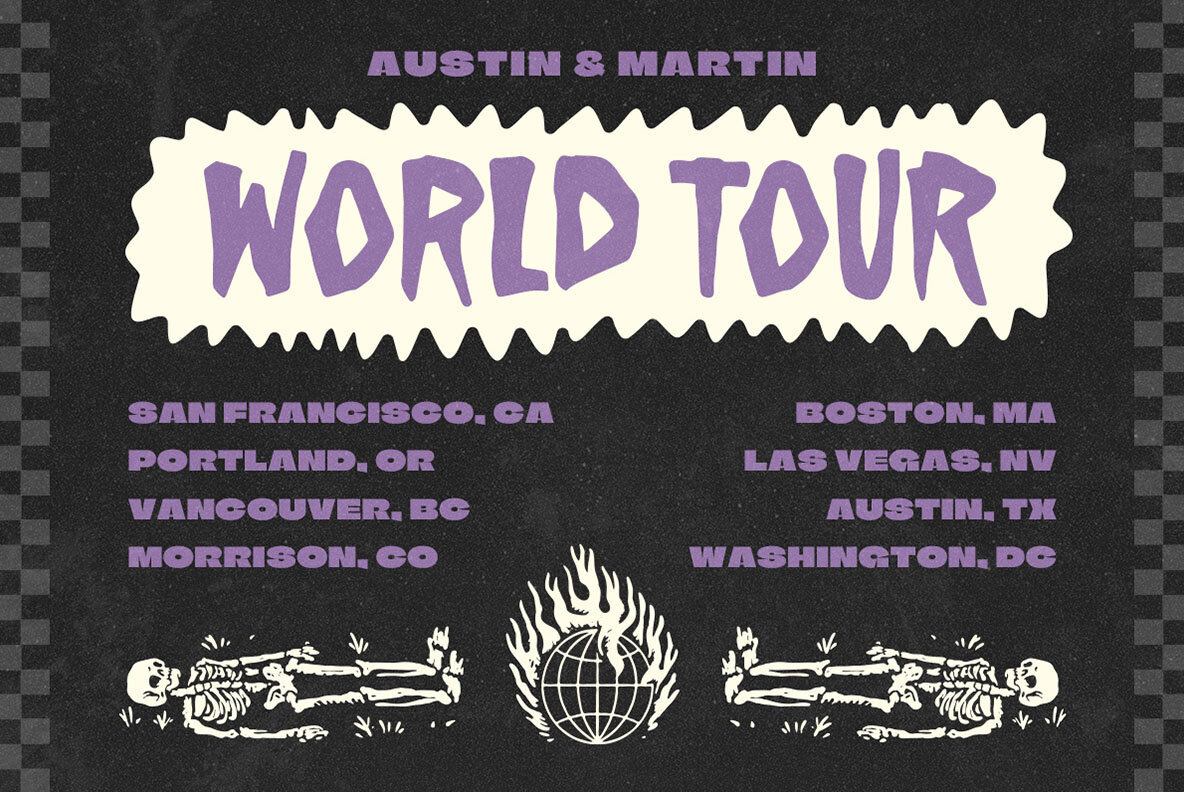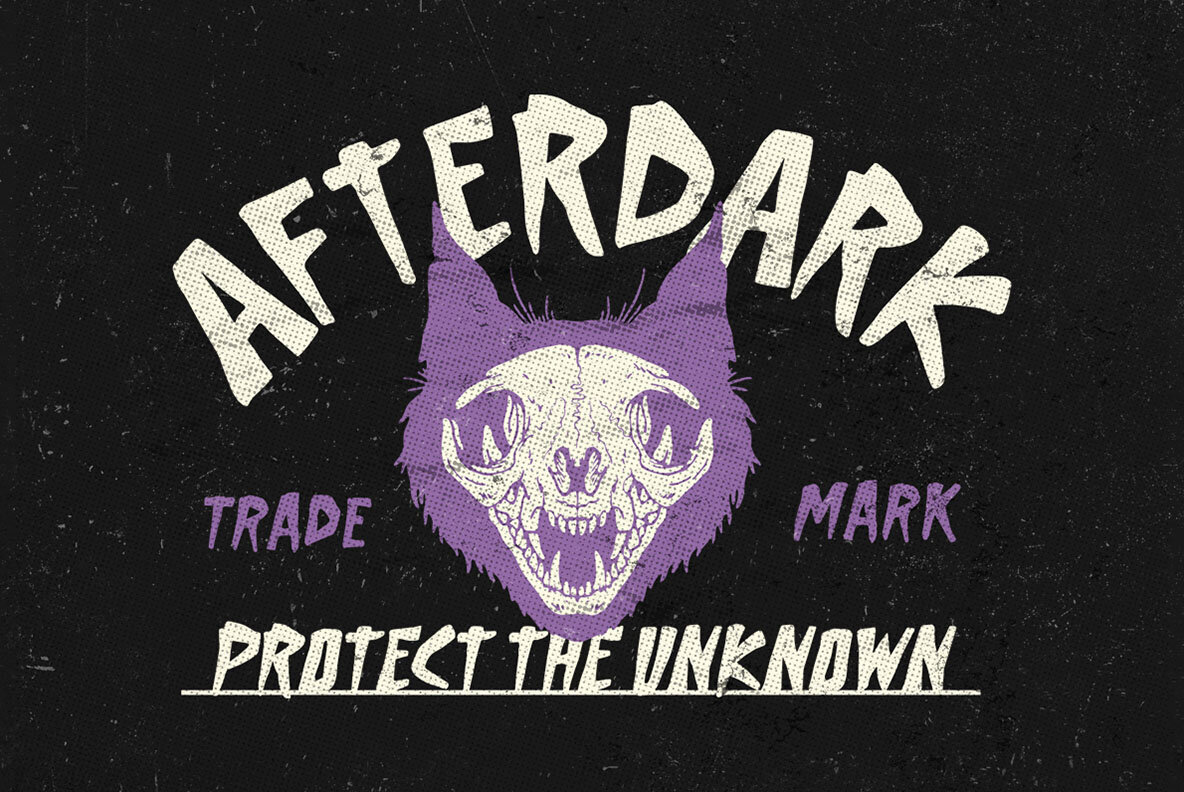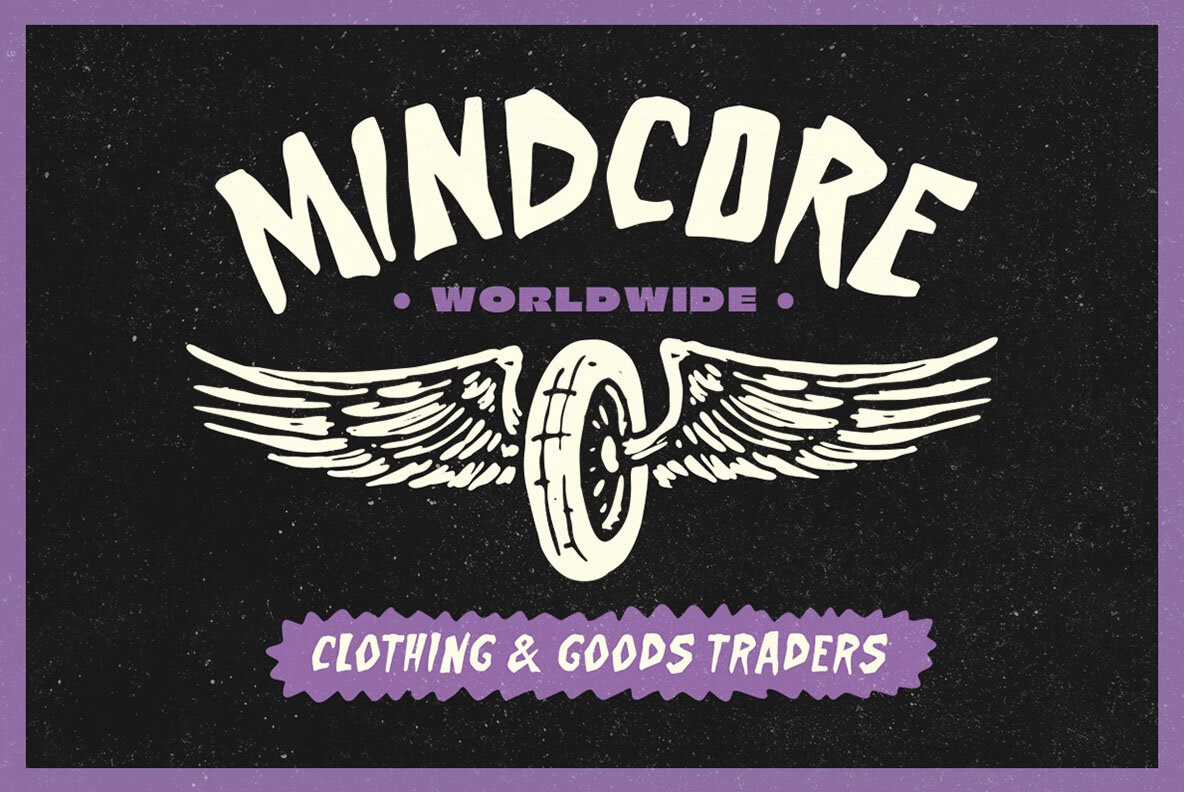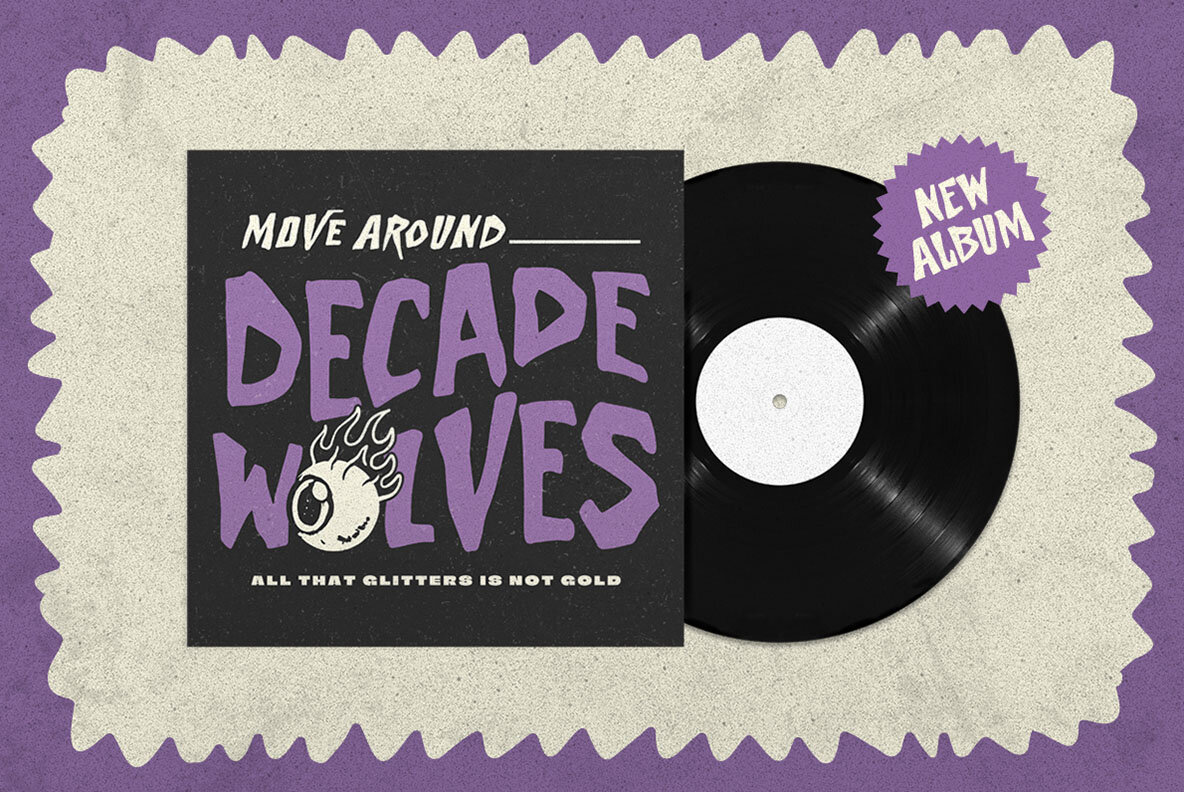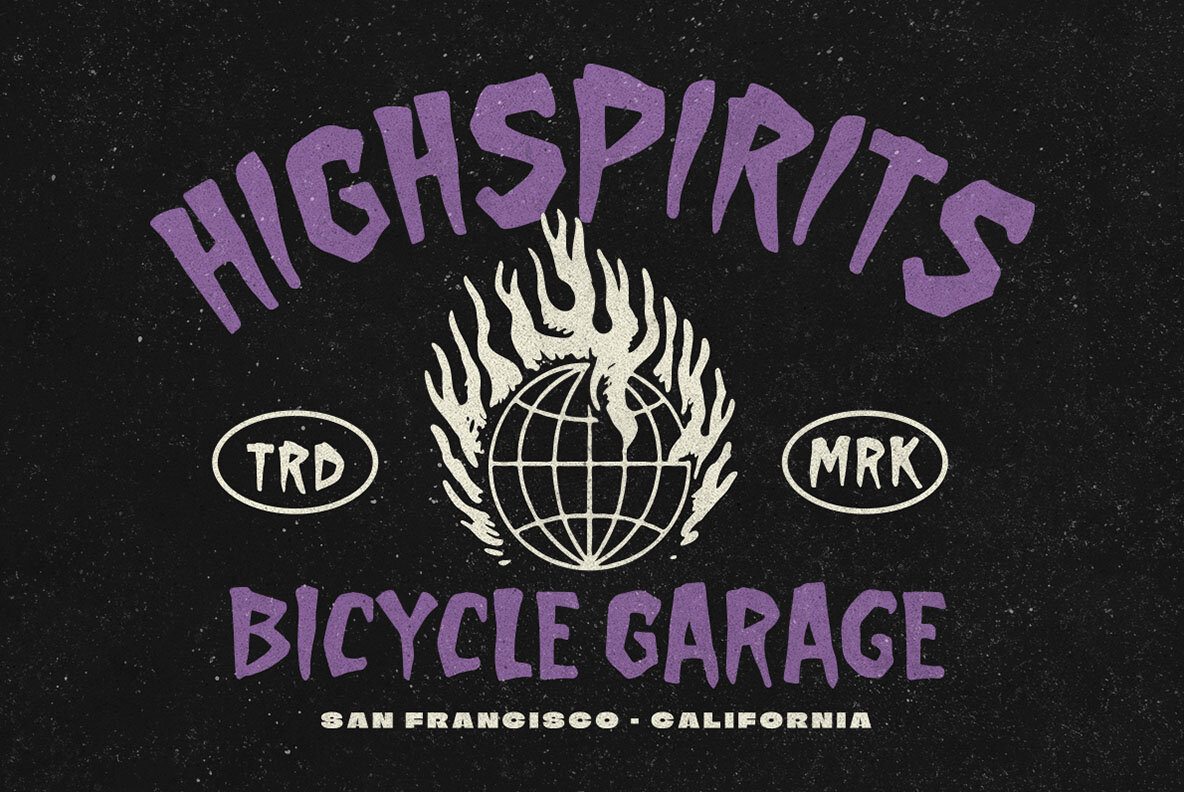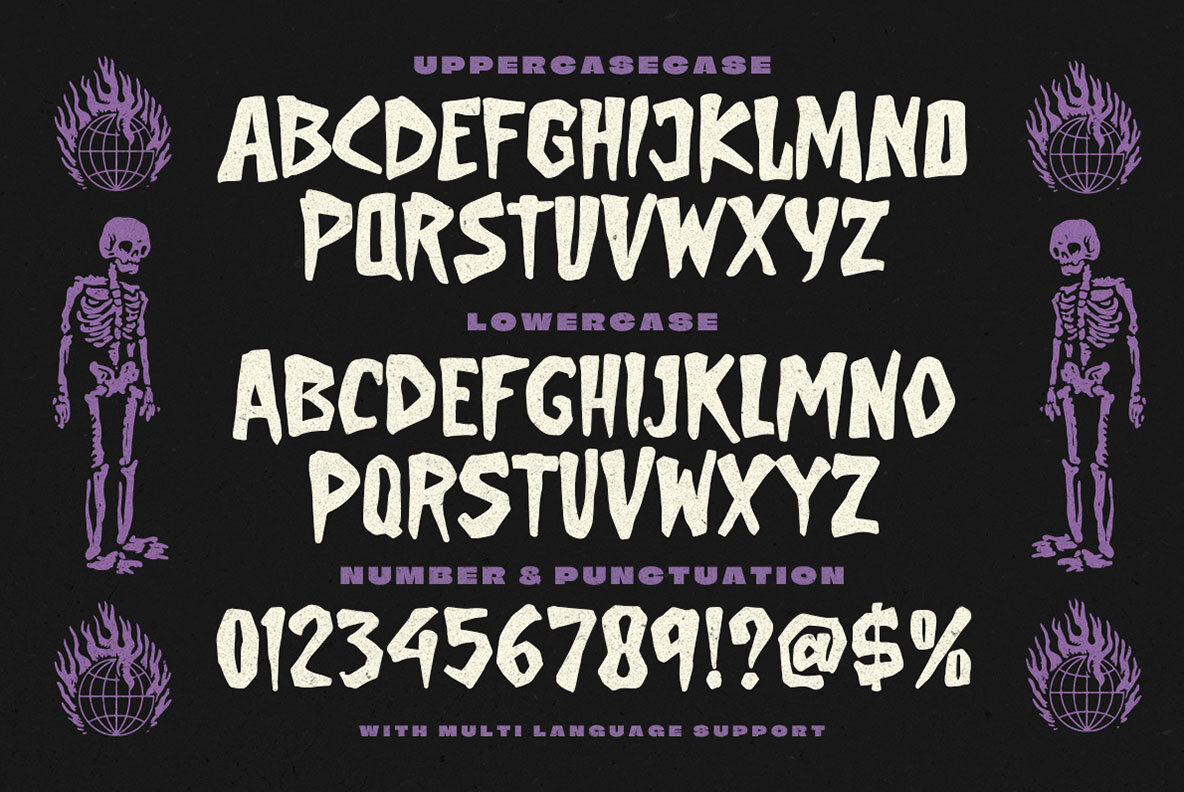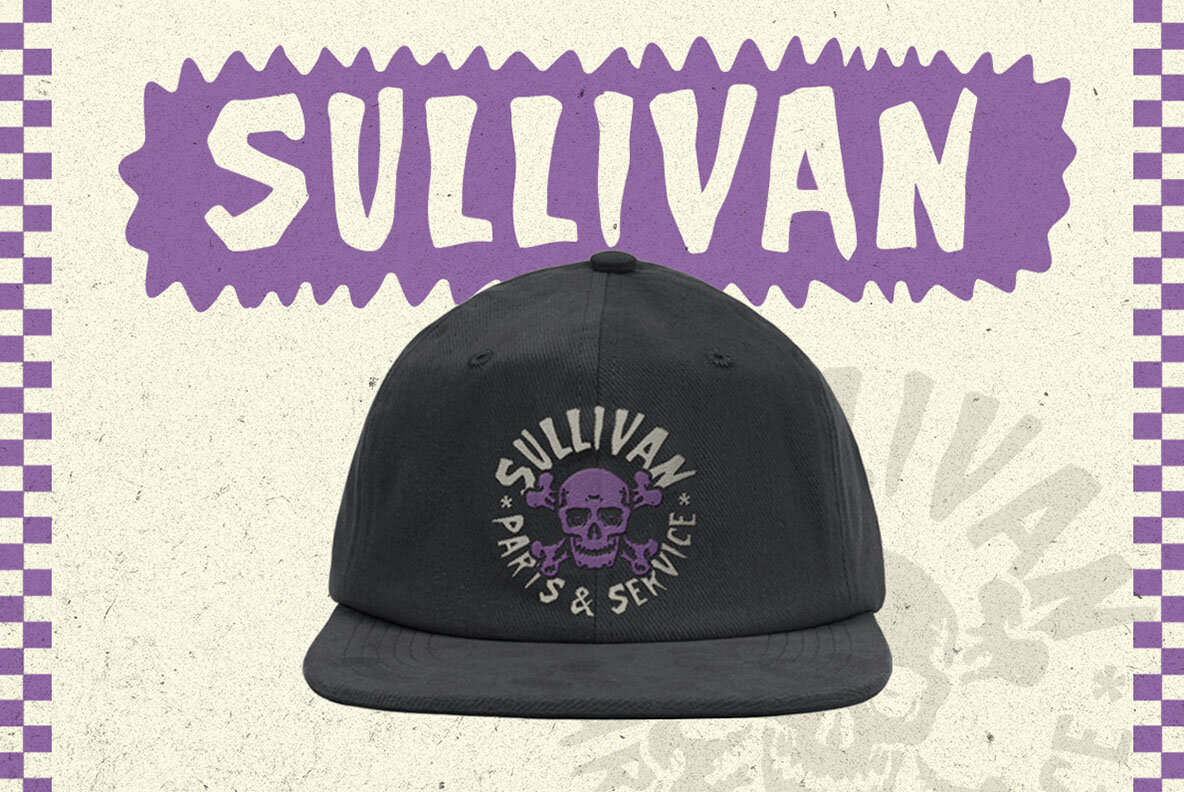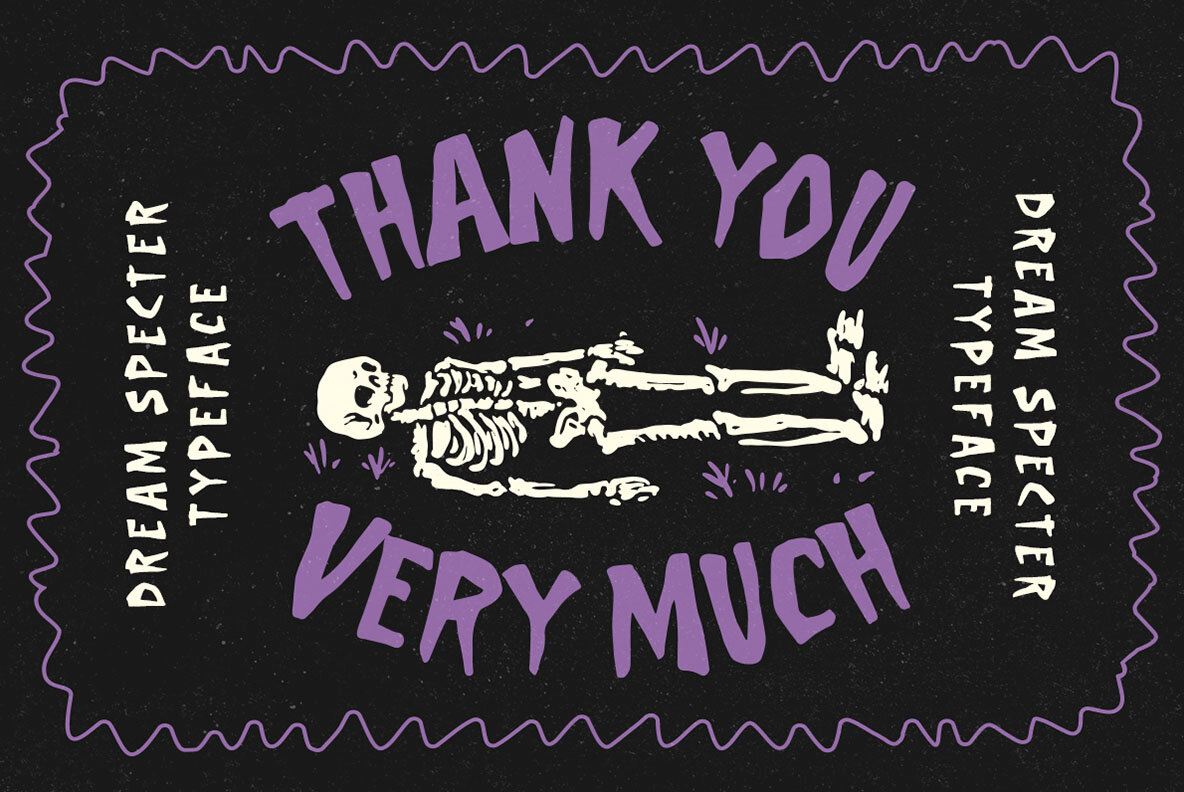
Dream Specter Font
Dream Specter is a display typeface with a horror feel, featuring unique shapes that are perfect for horror, thriller, and spooky-themed designs. Ideal for logos, invitations, labels, magazines, books, novels, and any type of advertising purpose. Features: We recommend using a program that supports OpenType features and Glyphs panels, such as Adobe apps and Corel Draw, to access all Glyph variations.